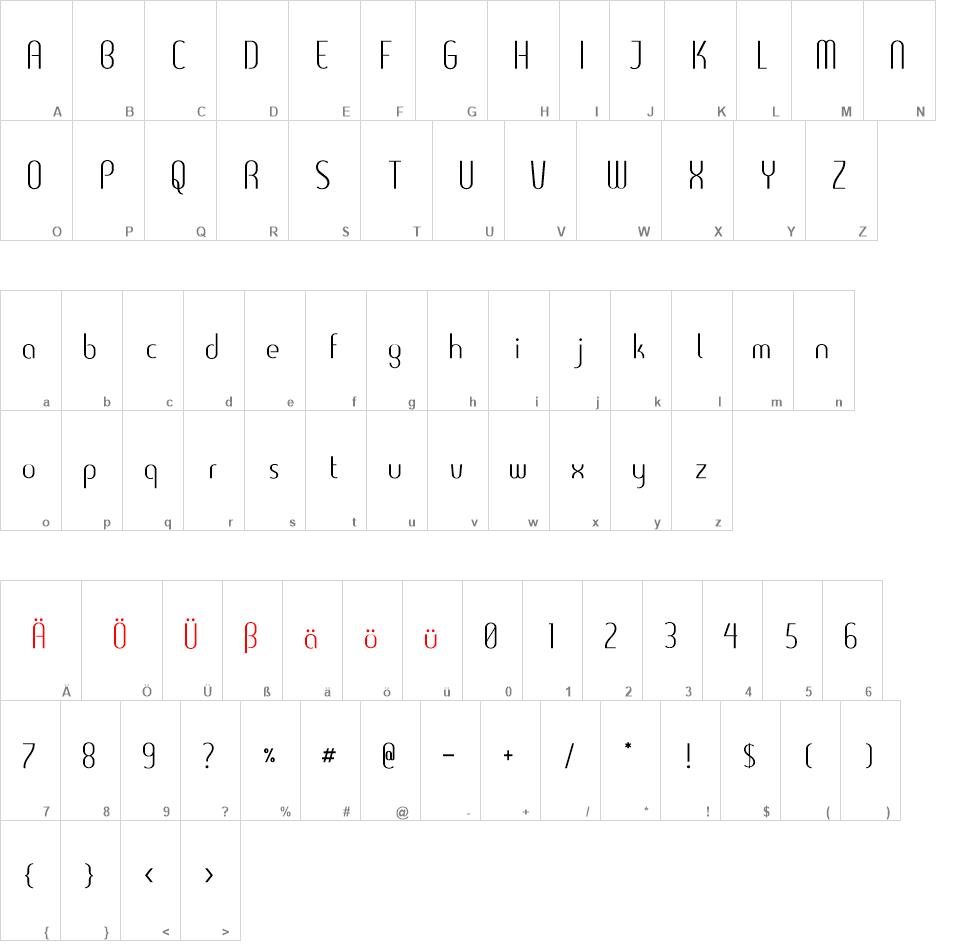
Clearlight
Clearlight  font
Clearlight
Clearlight is a crisp and simple sans serif. It's a bit technological with fancy details, giving it a friendly and elegant look.